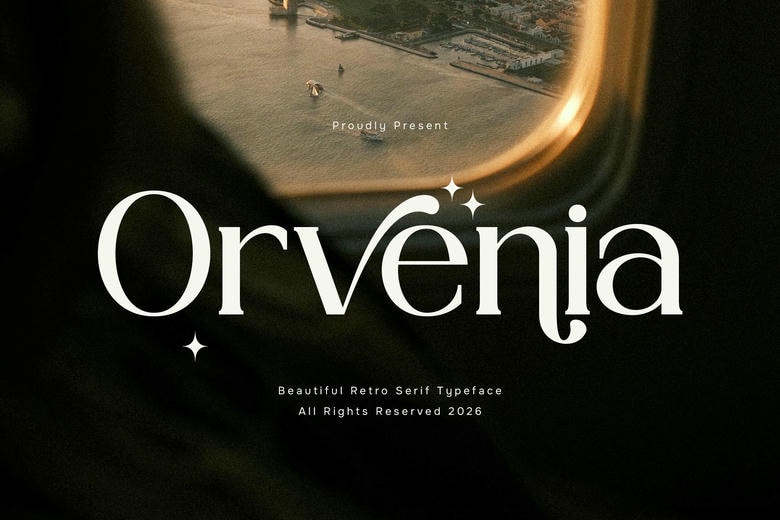
Orvenia Font
Orvenia is a retro serif font that combines nostalgic charm with a touch of elegance. Drawing from vintage typography, it has graceful serifs, gentle curves, and distinctive letter shapes that give it a warm, stylish look.
The retro style gives it a unique personality, and its elegant design makes it easy to read and well-balanced. Orvenia is a solid choice for designers seeking a timeless, expressive font that adds a touch of sophistication to any project.
Orvenia Serif Font